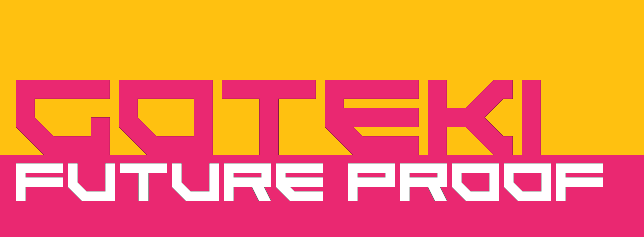
"Here is a font based on the logo and slogan 'Future Proof' for Goteki 45, a team in the Wipeout series. The fonts feature the upper-case alphabet, and where examples are not provided, I've done my best to stick to the 'rules' of the letter structure. Included in the package: -A Promotional Poster showcasing the font -Font -Example Logo Graphic -Team Colours Graphic" Made in 2009. |